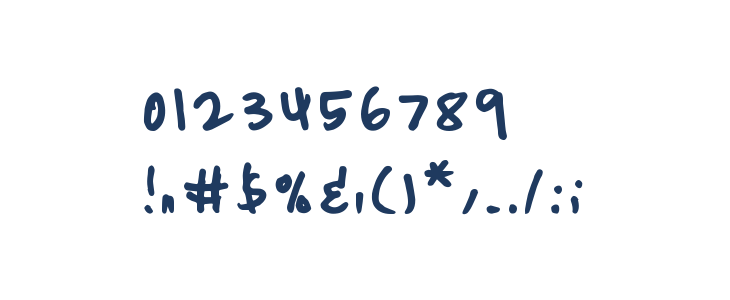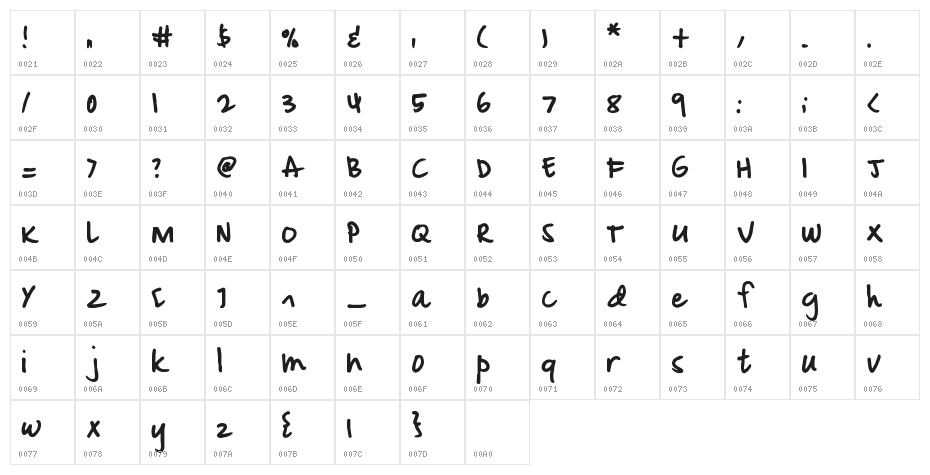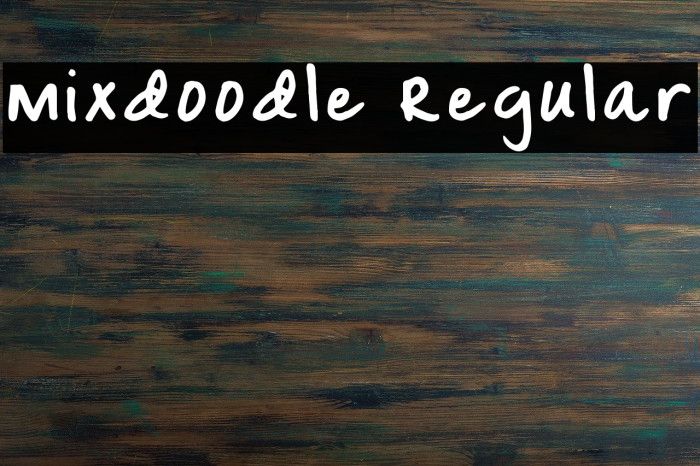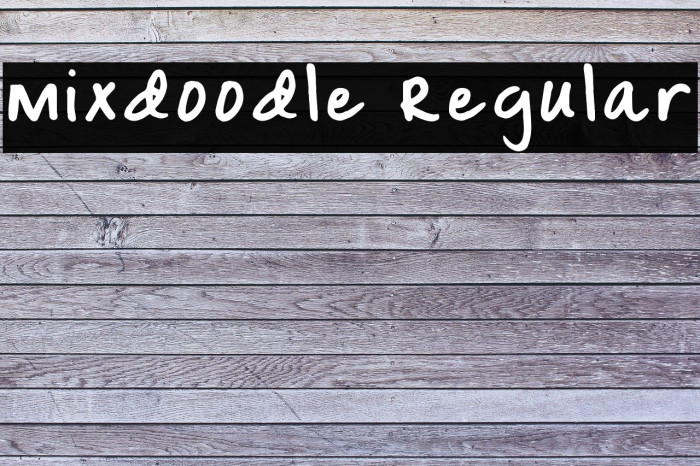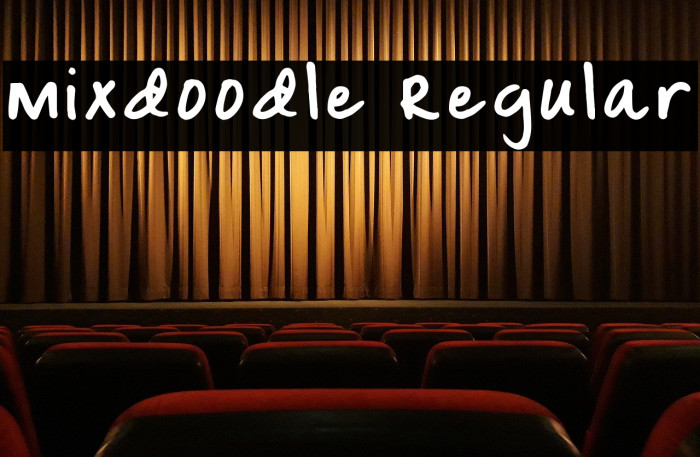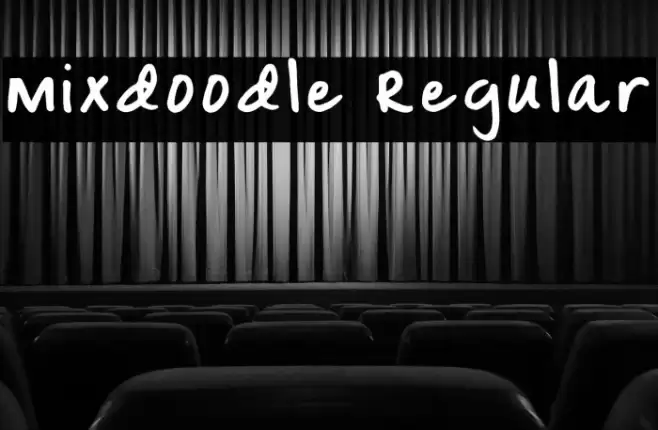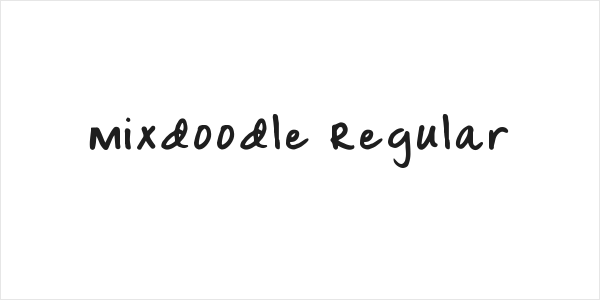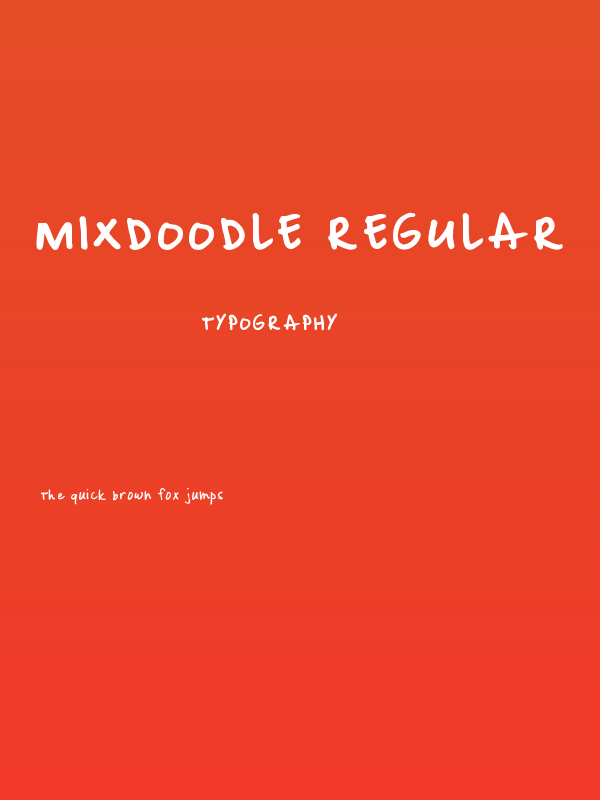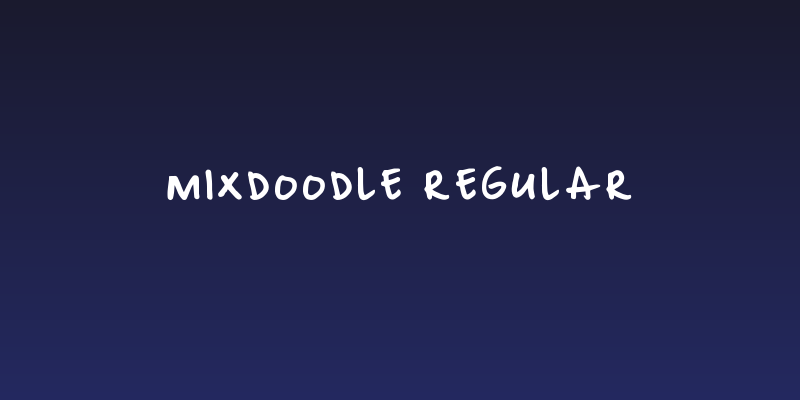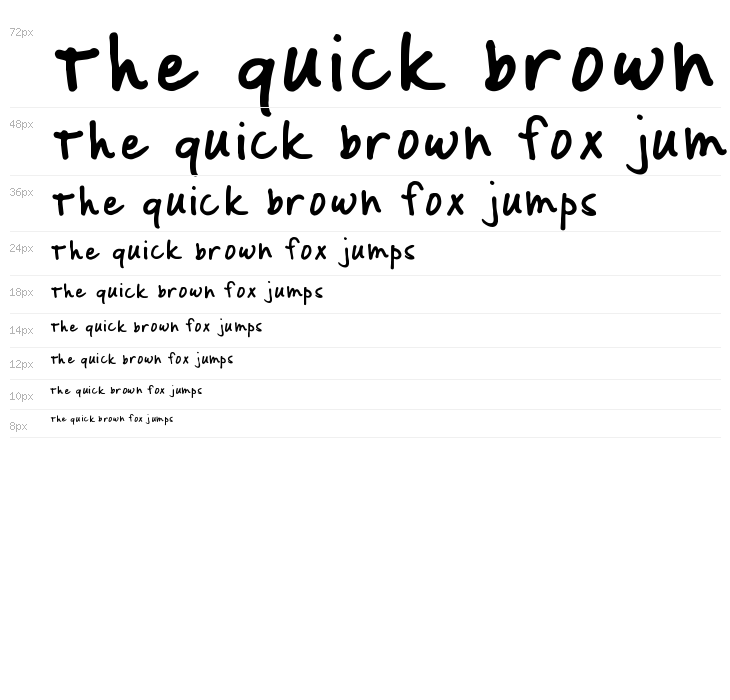
Mixdoodle Regular Font
Mixdoodle Regular Description
This playful and casual font features a handwritten style with a lively and energetic appearance. The characters are slightly irregular, adding a personal touch that mimics natural handwriting. The strokes are bold and consistent, giving it a strong presence while maintaining a friendly and approachable feel. The uppercase and lowercase letters are well-balanced, with a slight slant that enhances its informal style. Numbers and special characters are crafted to match the overall aesthetic, making it versatile for various creative projects. The font's unique charm makes it suitable for designs that require a personal and engaging touch.
| Proposed Projects | Ideal for greeting cards, children's books, casual branding, and social media graphics. |